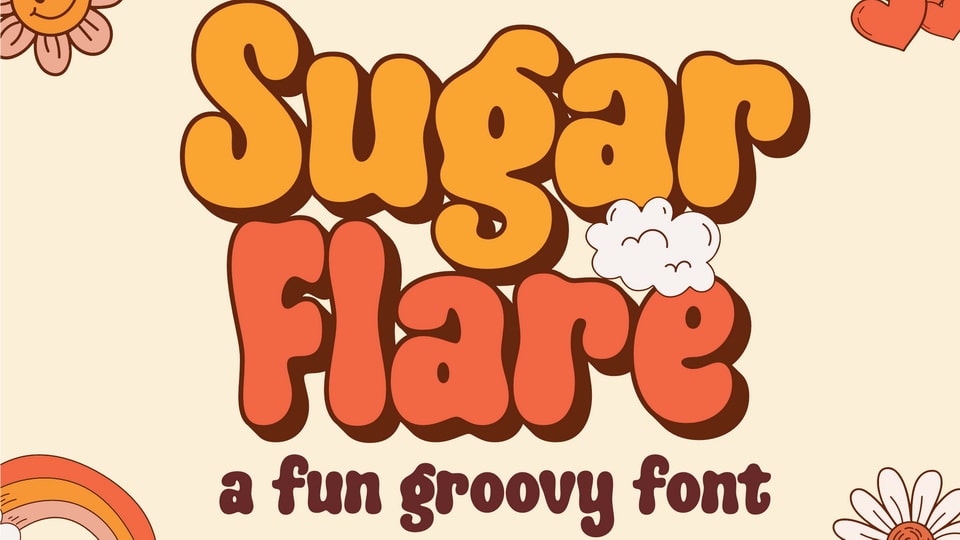
Download Sugar Flare font, a fun and groovy display typeface inspired by retro vibes and playful designs. Its bold, bubbly letters bring a cheerful and nostalgic energy to your projects.